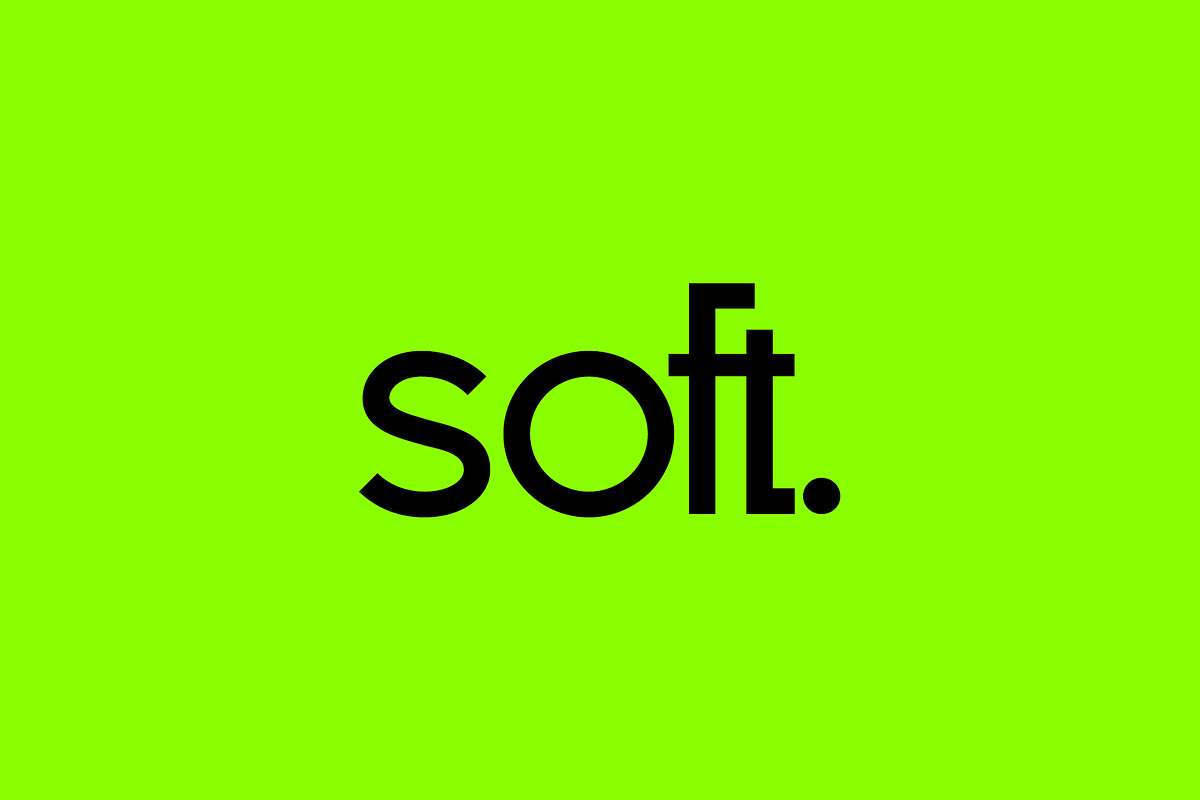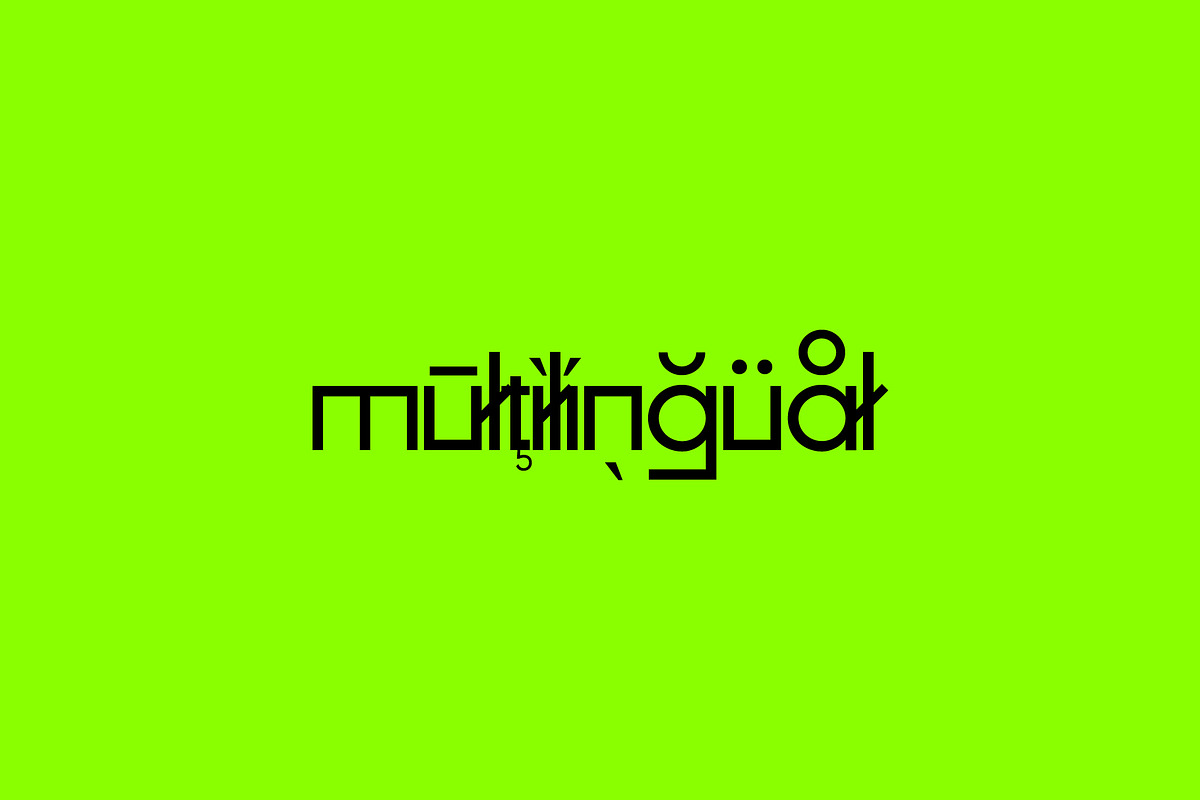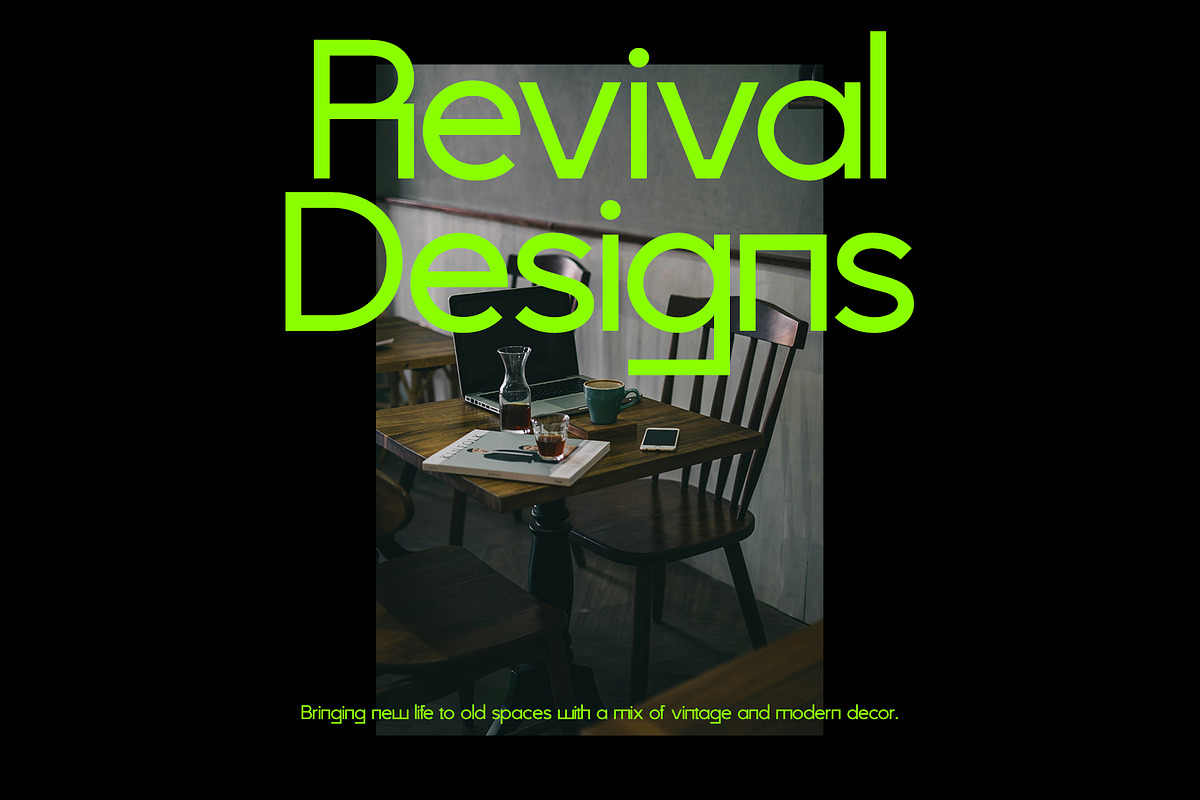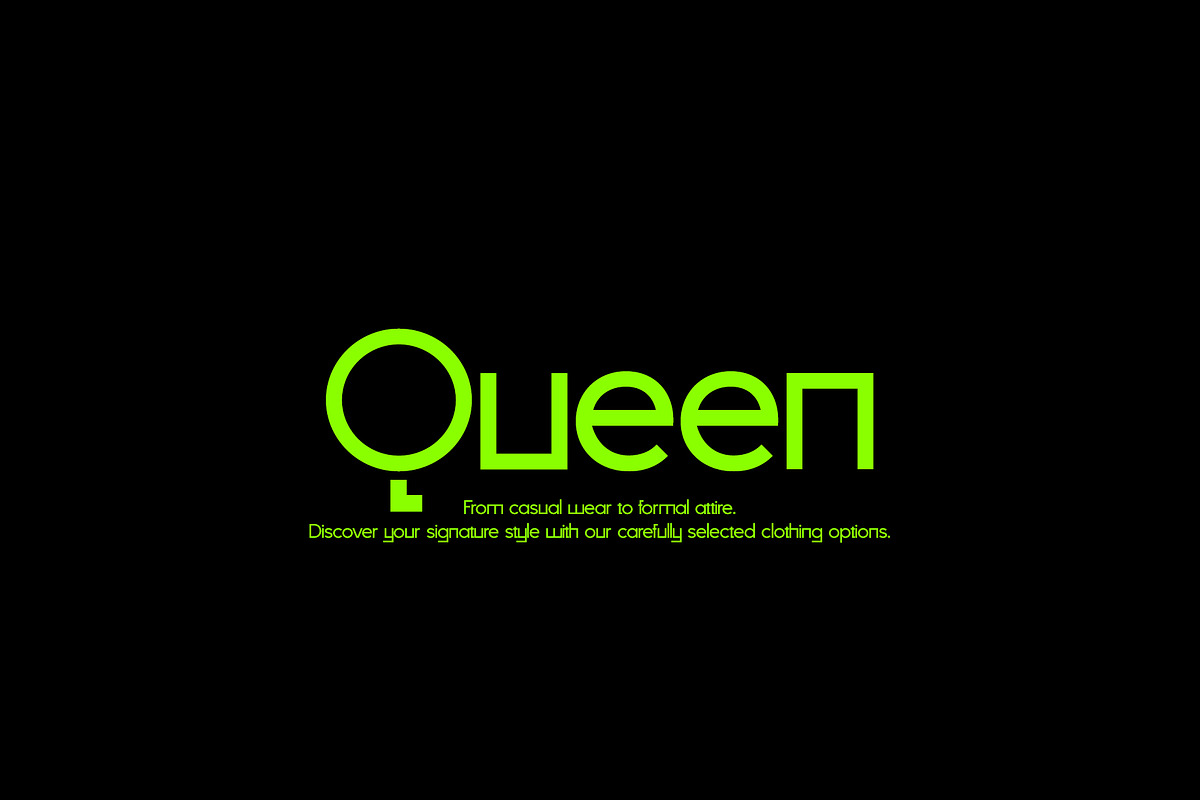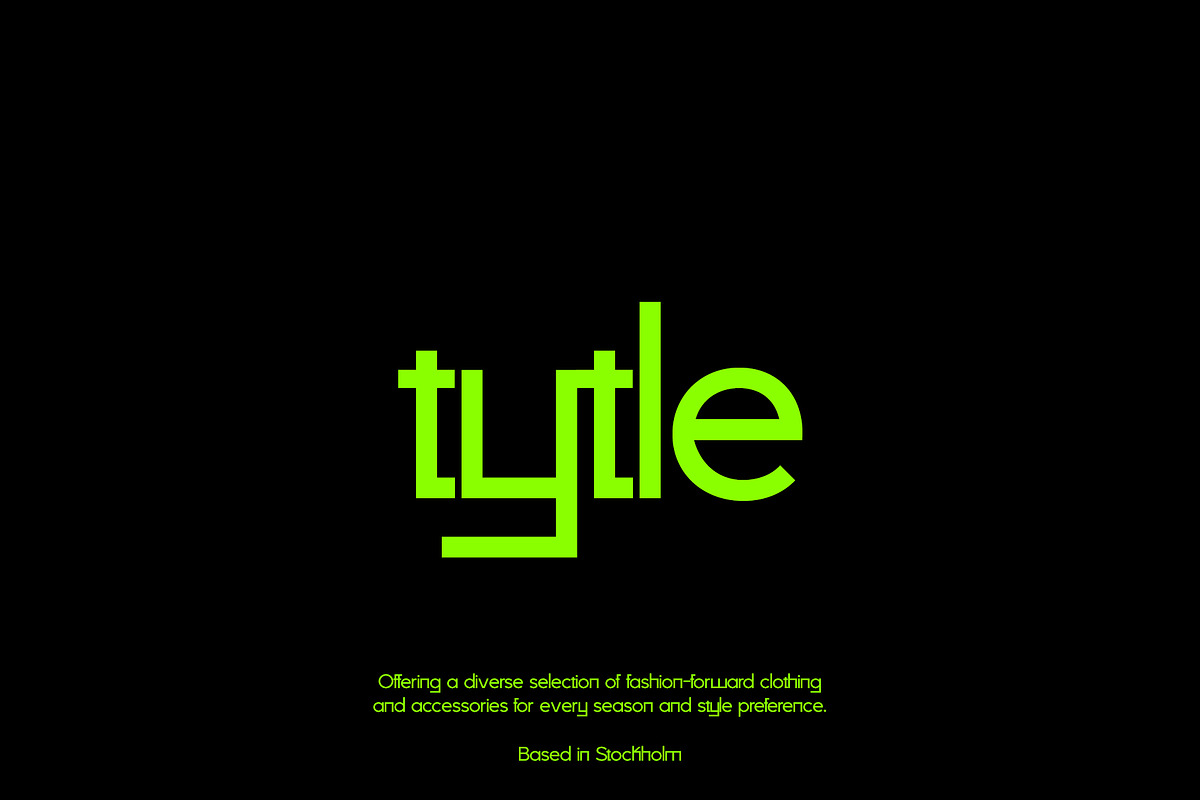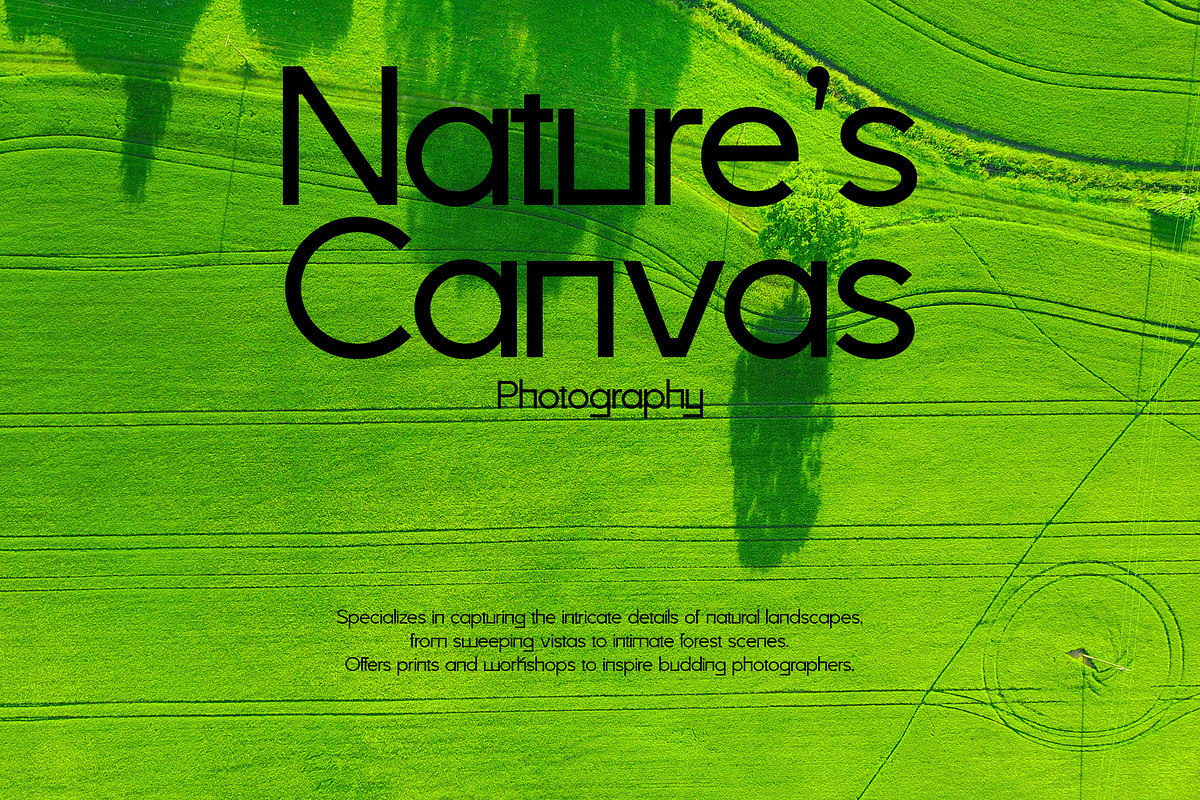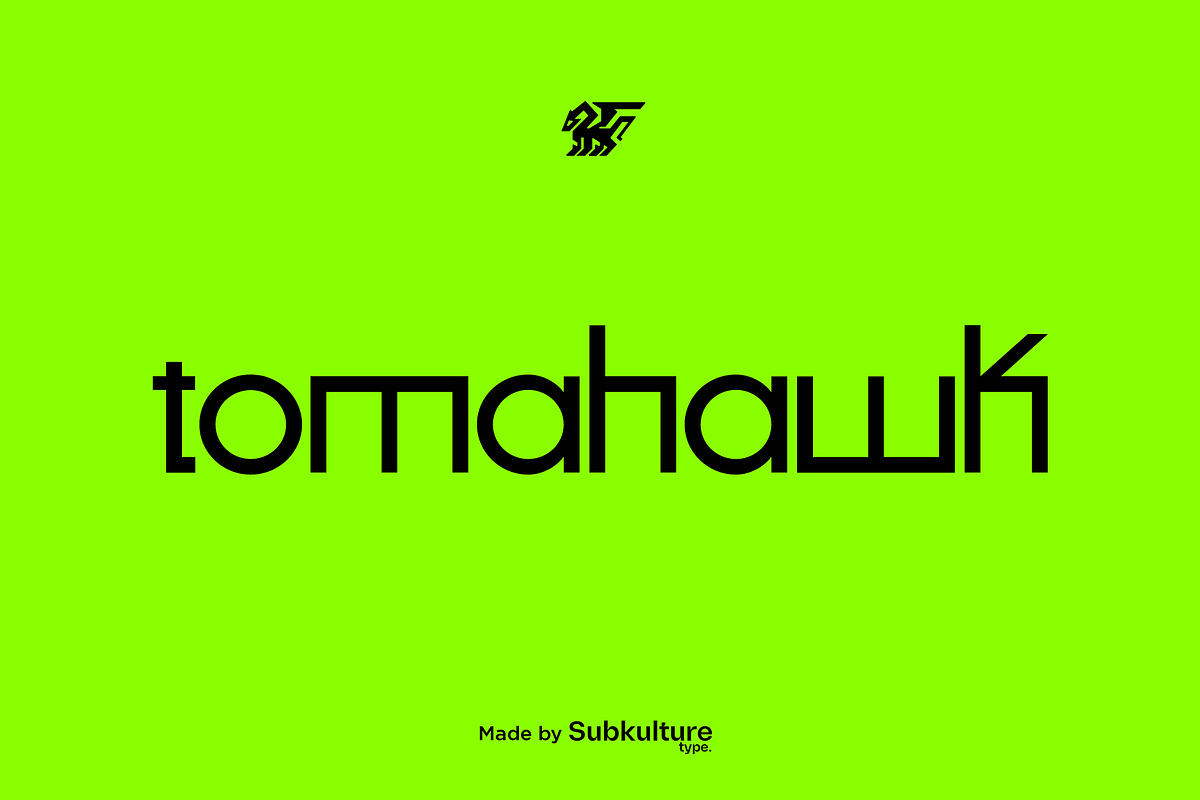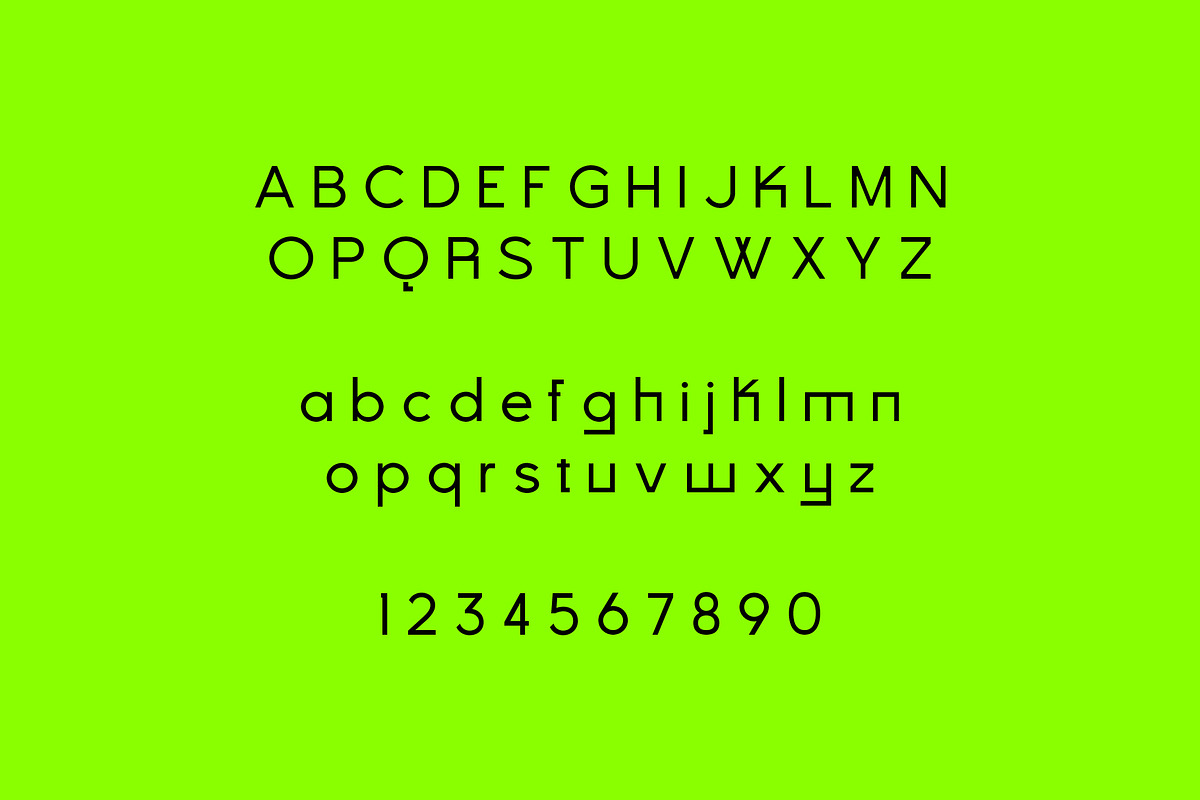
Tomahawk - Geometric & Unique Sans
Tomahawk - Unique Sans Serif is a regular sans serif typeface featuring geometric shapes and a modern flair. Its clean lines and distinctive character make it ideal for eye-catching branding and headlines. Perfect for both print and digital applications, Tomahawk adds personality and impact to any design.
Tomahawk features uppercase & lowercase letters, numbers & symbols, multilingual support, over 250+ glyphs.